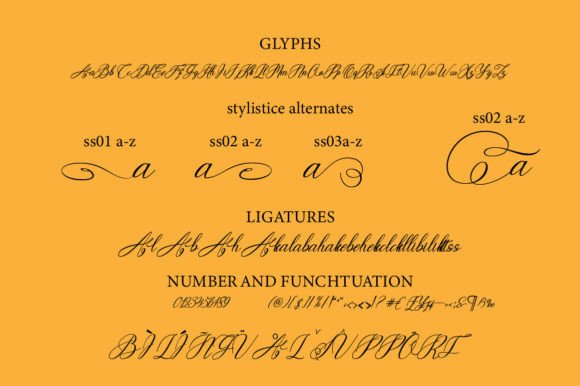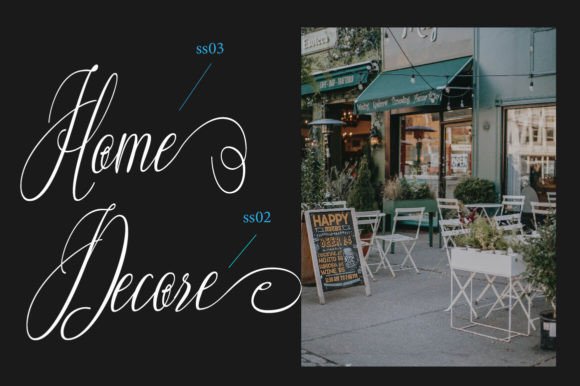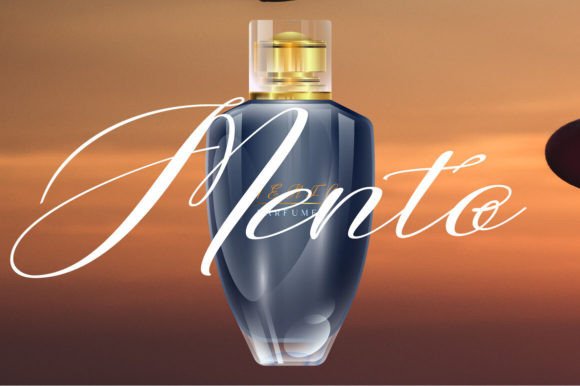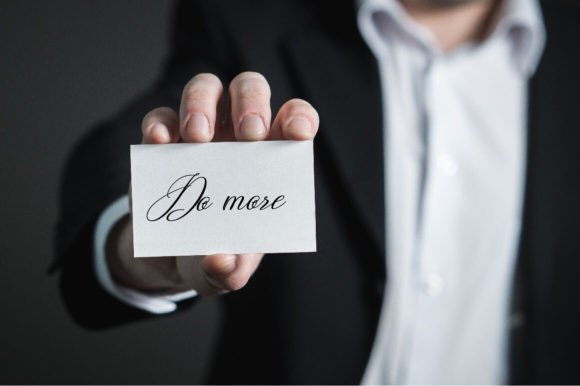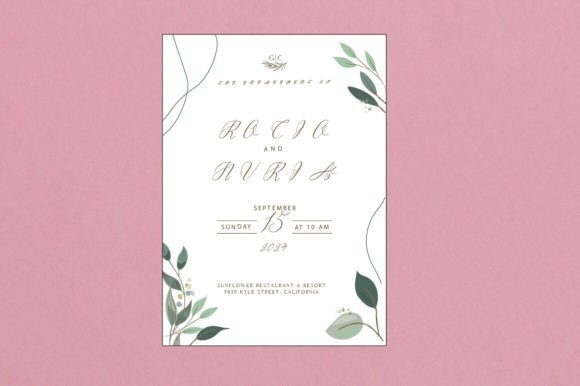
Introducing Aleksandria Font: A Stylistic and Powerful Script Font
Are you looking for a font that can add a touch of elegance and sophistication to your designs? Look no further than Aleksandria Font, a stunning script font created by the talented Burhanuddin. This font is perfect for designers and crafters who want to take their projects to the next level with a unique and stylish typeface.
What Makes Aleksandria Font Special?
Aleksandria Font is a stylistic and powerful script font that boasts different stylish type designs. Its unique and creative lettering style makes it perfect for a wide range of applications, from wall displays and wedding invitations to social media post logos, advertisements, and product packaging. Whether you’re working on a personal project or a client’s, this font is sure to impress.
Key Features of Aleksandria Font
- Stylish and Elegant Design: Aleksandria Font features a beautiful, cursive script design that’s perfect for adding a touch of sophistication to your projects.
- Versatile: This font is suitable for a wide range of applications, including wall displays, wedding invitations, social media post logos, advertisements, product packaging, and more.
- Unique Type Designs: Aleksandria Font comes with different stylish type designs, ensuring that your projects stand out from the crowd.
Aleksandria Font is a must-have for designers and crafters who want to add a touch of elegance and sophistication to their projects. Whether you’re working on a logo, brochure, or social media post, this font is sure to impress. Its unique and stylish design makes it perfect for:
- Wall Displays: Create stunning wall displays with Aleksandria Font, perfect for showcasing quotes, lyrics, or poems.
- Wedding Invitations: Add a touch of elegance to your wedding invitations with this beautiful script font.
- Social Media Post Logos: Create eye-catching social media post logos that stand out from the crowd.
- Advertisements: Use Aleksandria Font to create stunning advertisements that grab attention.
- Product Packaging: Add a touch of sophistication to your product packaging with this beautiful script font.
- Product Designs: Create stunning product designs with Aleksandria Font, perfect for showcasing your brand’s personality.
- Labels: Use this font to create stylish labels that add a touch of elegance to your products.
- Photography: Add a touch of sophistication to your photography with Aleksandria Font, perfect for watermarks or captions.
- Invitations: Create stunning invitations with this beautiful script font, perfect for parties, events, or special occasions.
- Stationery: Add a touch of elegance to your stationery with Aleksandria Font, perfect for letters, cards, or journals.
Why Choose Aleksandria Font?
With so many fonts available, why choose Aleksandria Font? Here are just a few reasons:
- Unique Design: Aleksandria Font features a unique and stylish design that’s sure to impress.
- High-Quality: This font is created with high-quality craftsmanship, ensuring that it looks great in any project.
In conclusion, Aleksandria Font is a stylistic and powerful script font that’s perfect for designers and crafters who want to add a touch of elegance and sophistication to their projects. With its unique and stylish design, versatility, and ease of use, this font is a must-have for anyone looking to take their projects to the next level. So why wait? Download Aleksandria Font today and experience the difference for yourself!